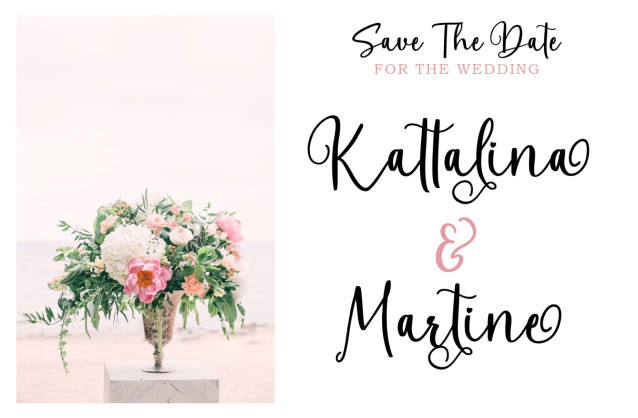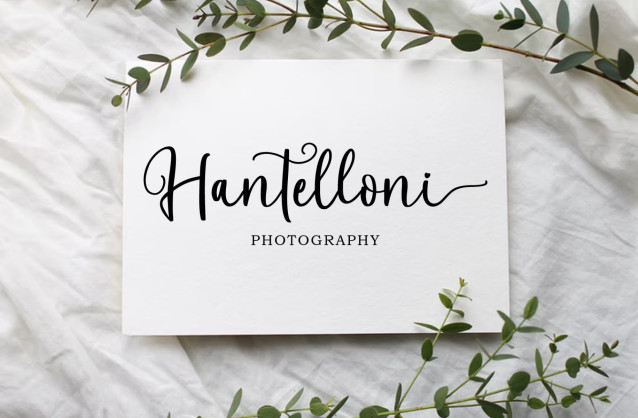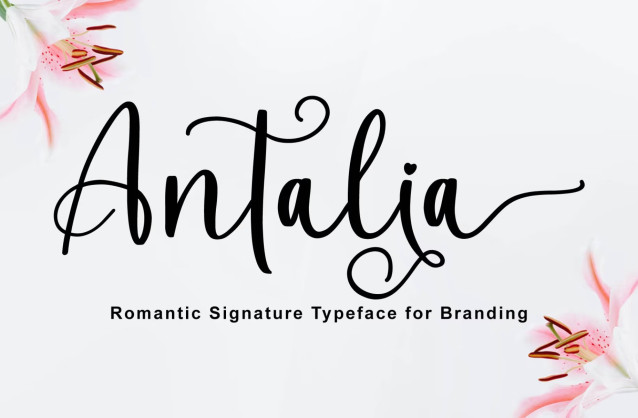
Antalia Elegant Calligraphy Font
Antalia is an elegant and romantic calligraphy typeface that will add a spark of luxury to any design project you want to create! This font is PUA encoded which means you can access all the amazing glyphs and ligatures with ease!
Its stylish alternates and ligatures make this font the perfect match for any project. You can use this feminine font for clothes, fashion, magazines, wedding invitations, and cards.